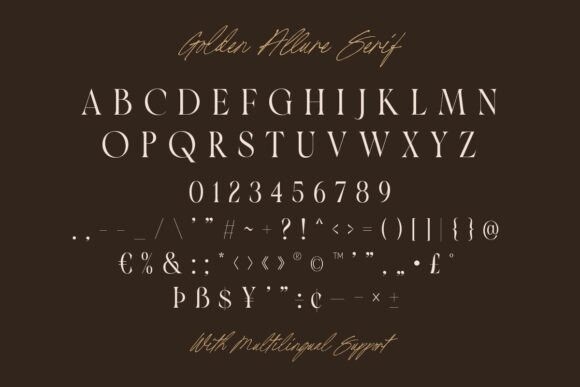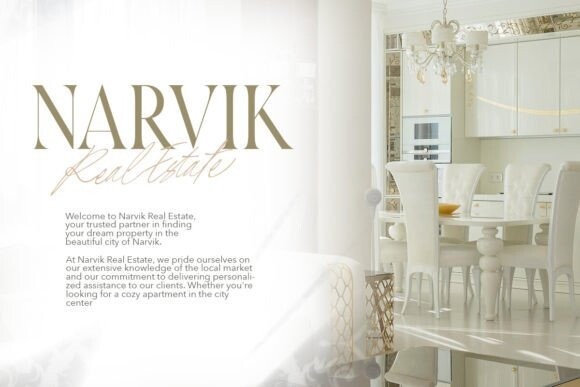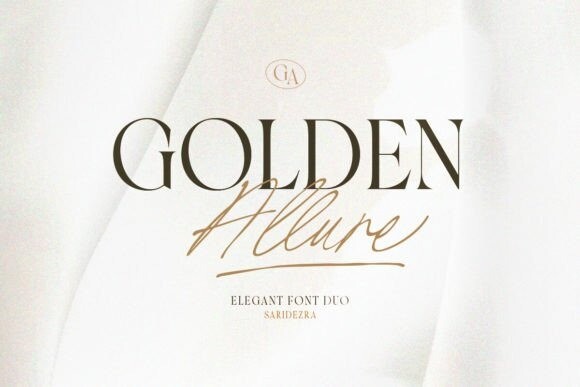
Golden Allure Font
Golden Allure Font is an elegant combination of modern serif with a handwritten script. Contains two fonts, the modern yet classy serif and signature handmade script. You can use this font for any purpose, suitable for any project.